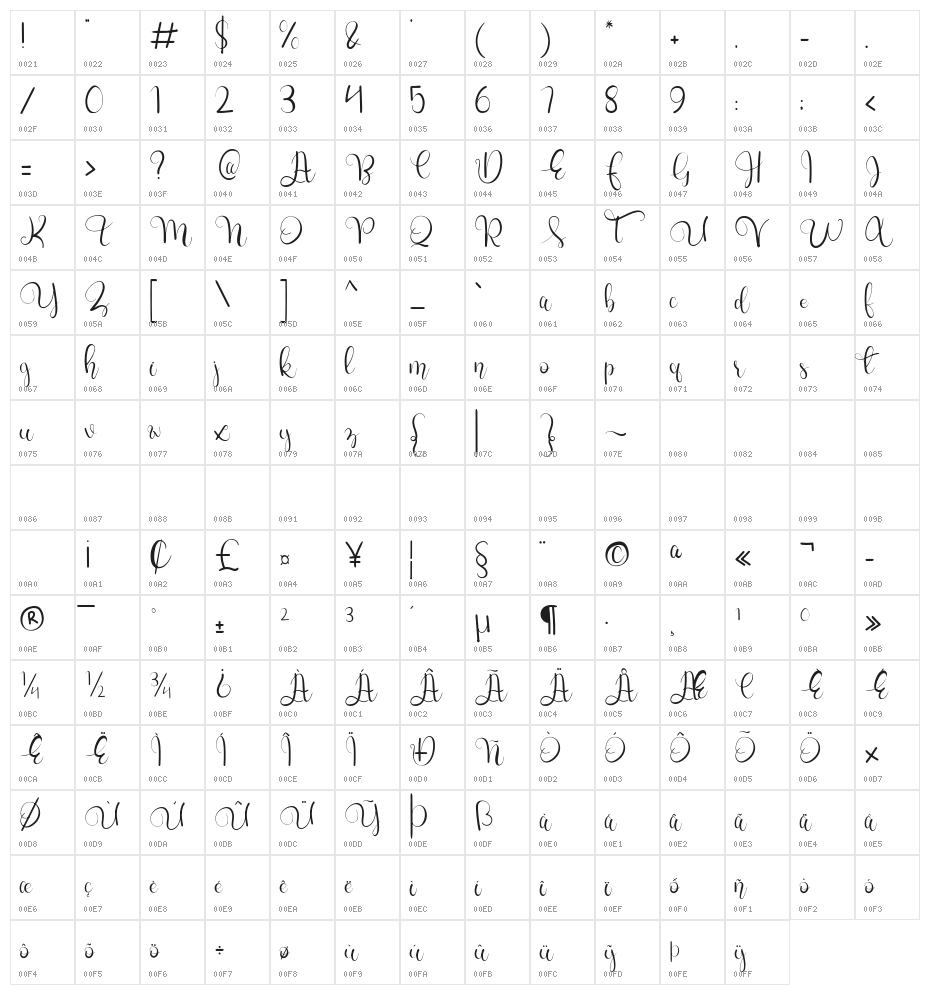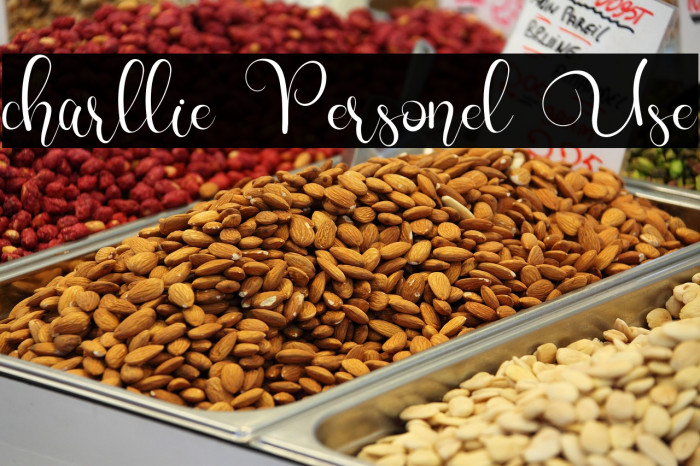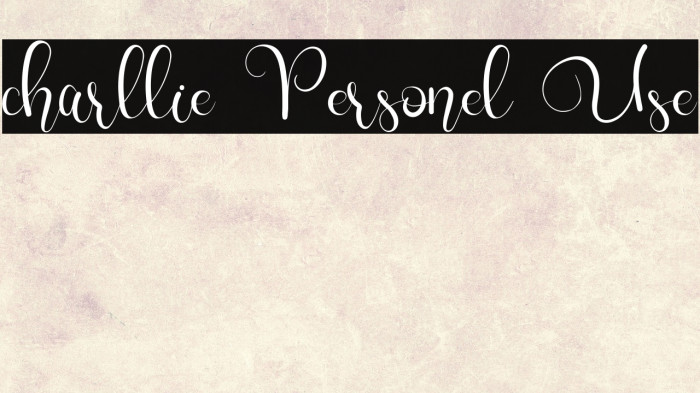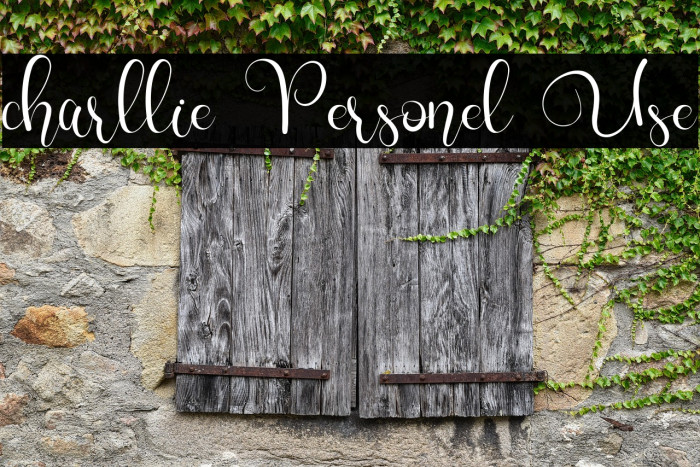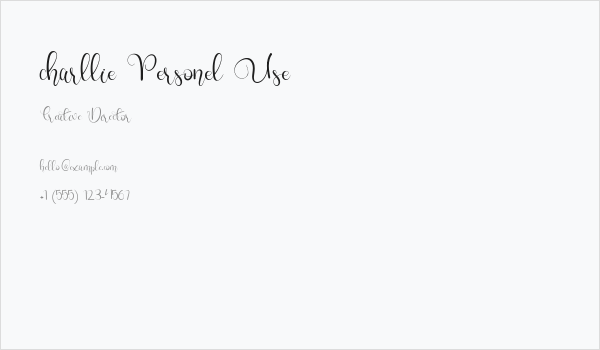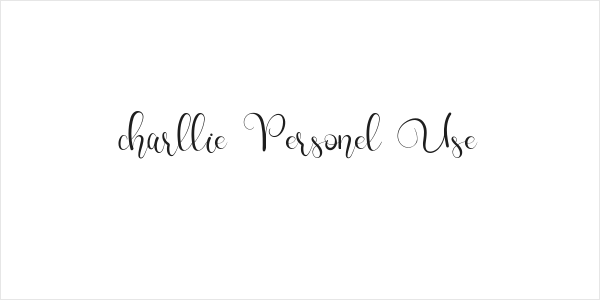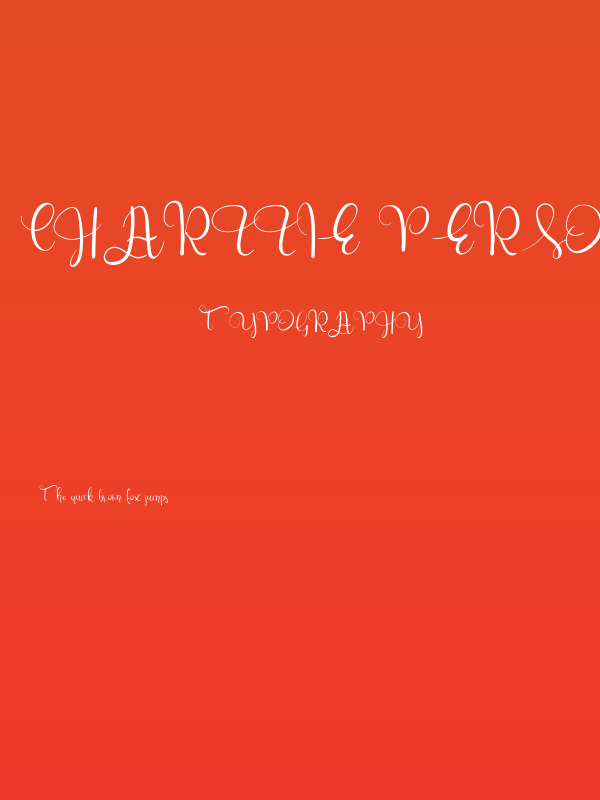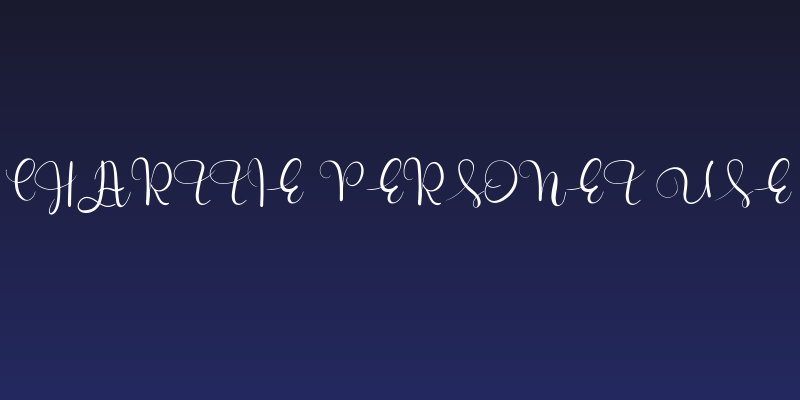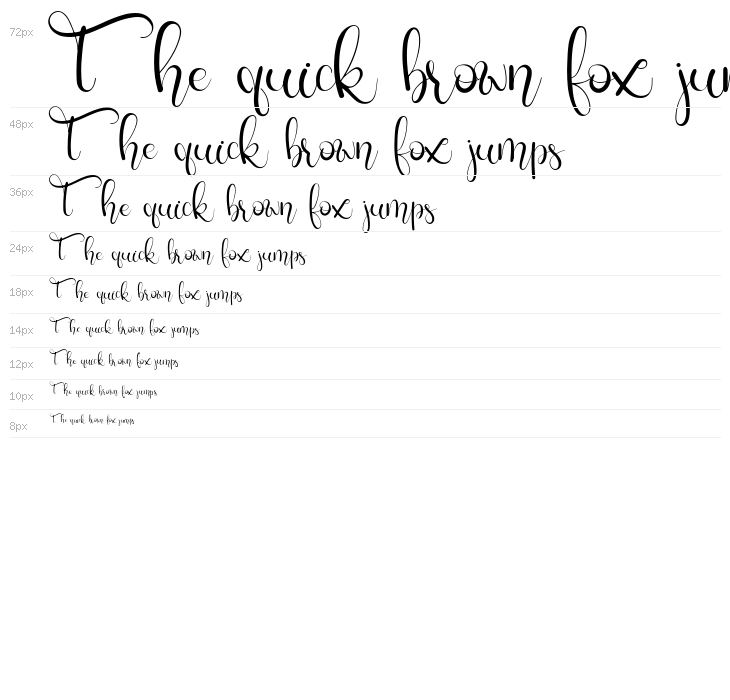
charllie Personel Use Font
charllie Personel Use Description
This font features an elegant and flowing script style, characterized by its intricate loops and swirls. The uppercase letters exhibit a graceful, cursive form with varying stroke widths that add a dynamic feel. The lowercase letters maintain a consistent style, with some characters displaying unique flourishes that enhance the overall aesthetic. Numerals are designed with a similar flair, ensuring they blend seamlessly with the alphabet. Special characters retain the decorative theme, making them suitable for creative and artistic projects. The font's overall appearance is sophisticated and stylish, ideal for adding a touch of elegance to any design.
| Proposed Projects | Ideal for wedding invitations, greeting cards, branding, and decorative projects. |